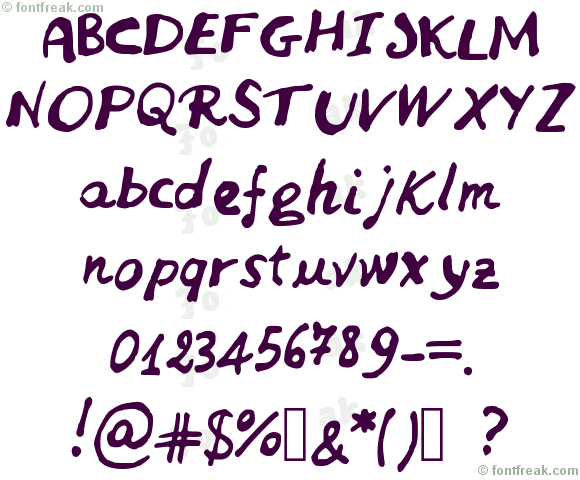
JDBrush
About JDBrush
JDBrush, created by Jecko Development and available as a freeware, is a captivating handwritten font that exudes a casual yet artistic flair. This font falls into the script category, characterized by its fluid, brush-like strokes that mimic the look of spontaneous handwriting. The stroke weight is medium, offering a balanced appearance that is both legible and stylish. With a moderate contrast between thick and thin lines, JDBrush maintains a lively rhythm, while its slightly irregular spacing adds to the handwritten effect, making it feel personal and inviting.
JDBrush is particularly suited for a variety of creative applications. It shines in wedding invitations, where its elegant style can evoke romance and intimacy. Additionally, this font is a fantastic choice for movie posters, lending a dynamic and fresh vibe that captures attention. Restaurant menus benefit from JDBrush’s unique character, enhancing the dining experience with a touch of artistry. It can also be employed in social media graphics, making it a favorite among content creators looking to add personality to their posts. Graphic designers and small business owners will find this font invaluable for branding projects that require a human touch.
What sets JDBrush apart is its ability to convey emotion through typography. The fluidity of the strokes captures the essence of creativity, making it a versatile option for anyone looking to make a statement. Whether you’re designing for print or digital platforms, the JDBrush font free download allows you to infuse your projects with a unique blend of style and authenticity. This font not only enhances visual appeal but also resonates with audiences, making it a standout choice for diverse design needs.